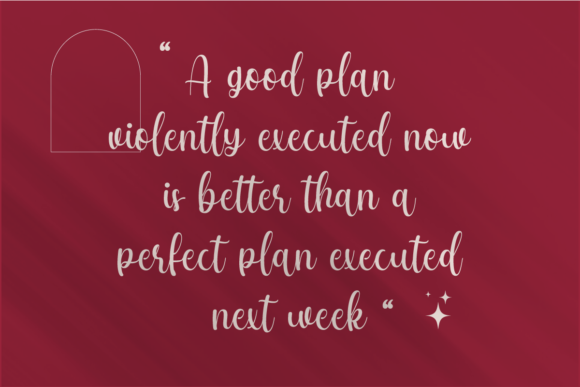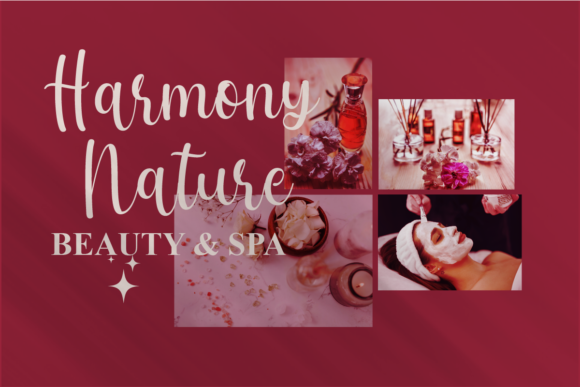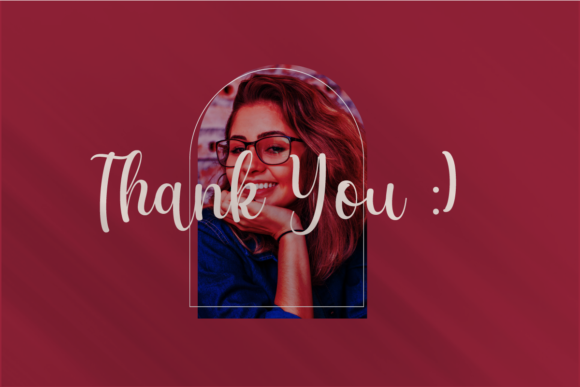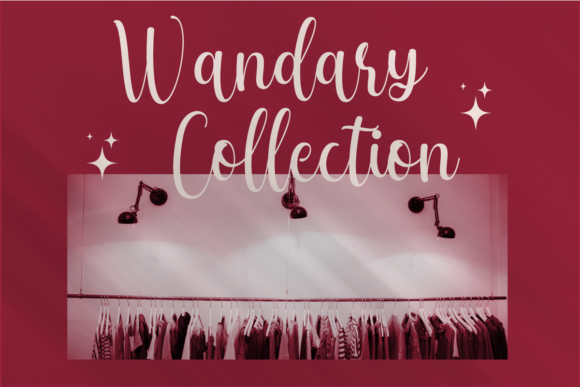
About Moly Katie Font
Moly Katie is an enchanting handwritten font. This versatile script font has a wide spectrum of applications ranging from greeting cards to headlines and is guaranteed to add a romantic feel to your next project.